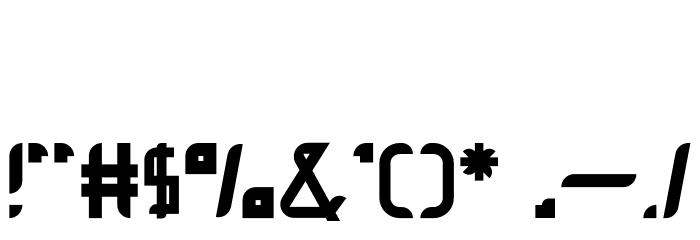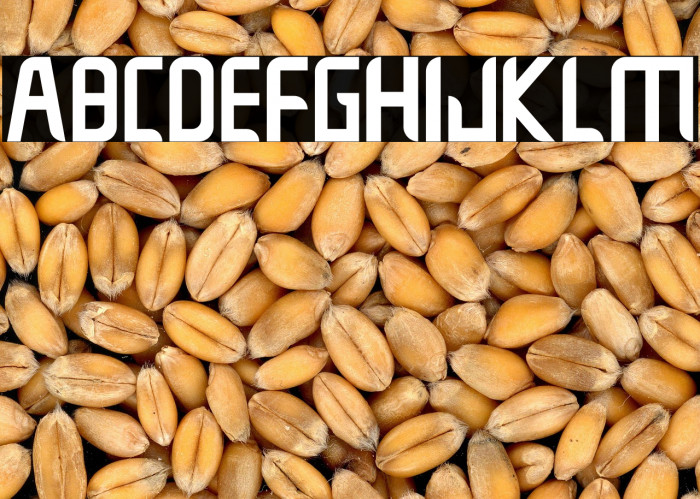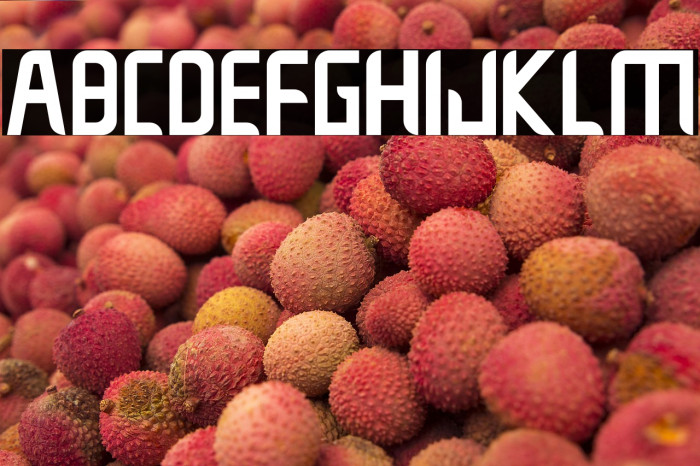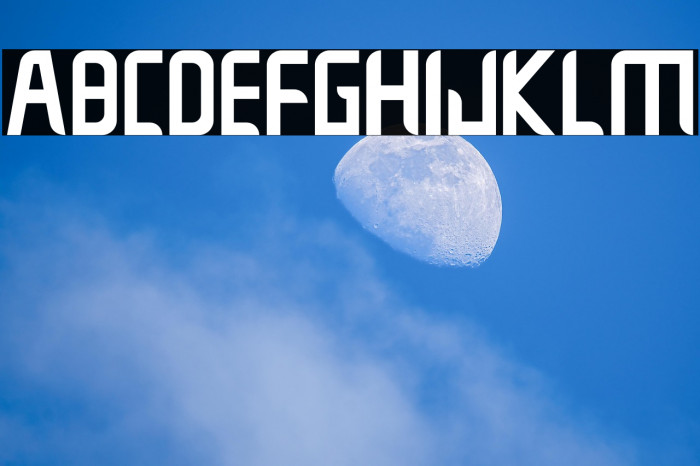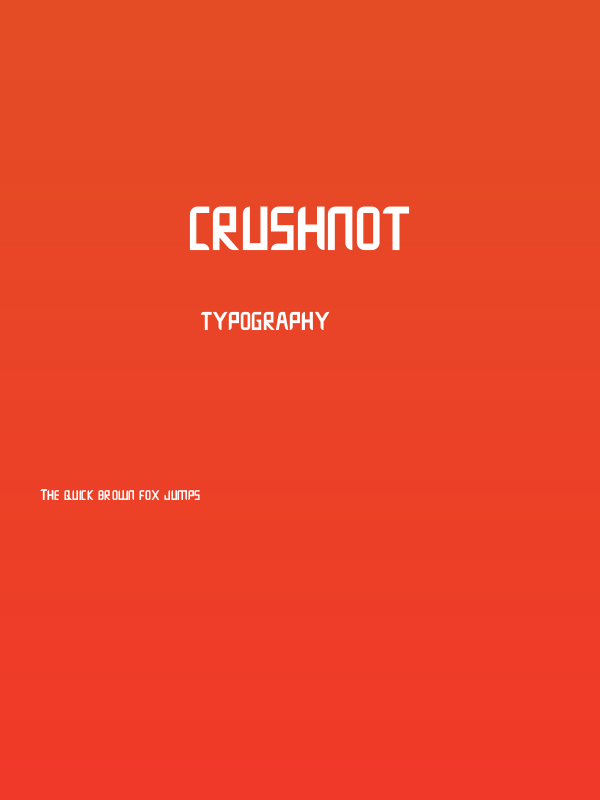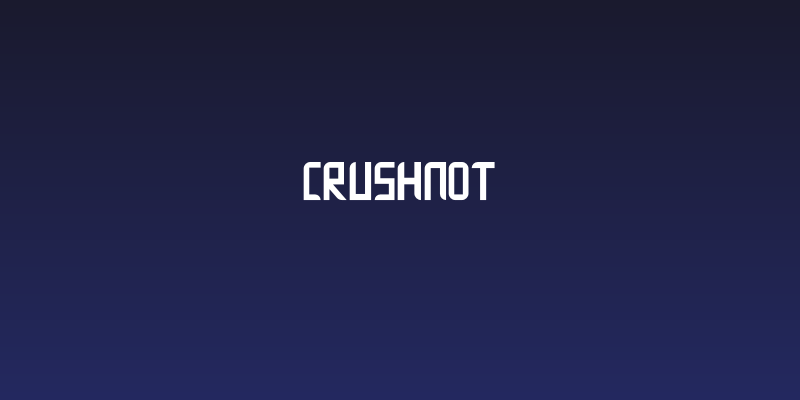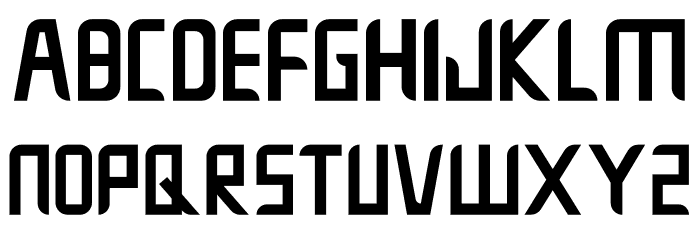
Crushnot Font
Crushnot Description
This font features a bold and geometric design with a modern aesthetic. The characters are constructed with sharp angles and straight lines, giving it a futuristic and tech-inspired look. The uppercase letters are uniform in height, while the lowercase letters maintain a consistent style, enhancing readability. The numerals and special characters are designed to match the overall angular theme, providing a cohesive appearance across all glyphs. This font's unique style makes it stand out, making it suitable for eye-catching designs.
| Proposed Projects | Ideal for technology branding, futuristic posters, video game titles, and digital media. |